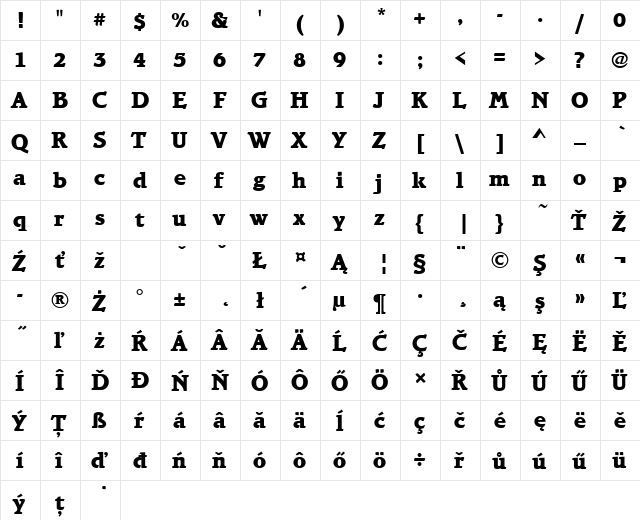
BramleyTEEExtBol Regular Font Preview
BramleyTEEExtBol Regular
BramleyTEEExtBol Regular Font Details
Design Context for BramleyTEEExtBol Typeface
BramleyTEEExtBol offers clean, dependable letterforms without strong stylistic allegiance, making it a practical choice for designers who need flexibility.